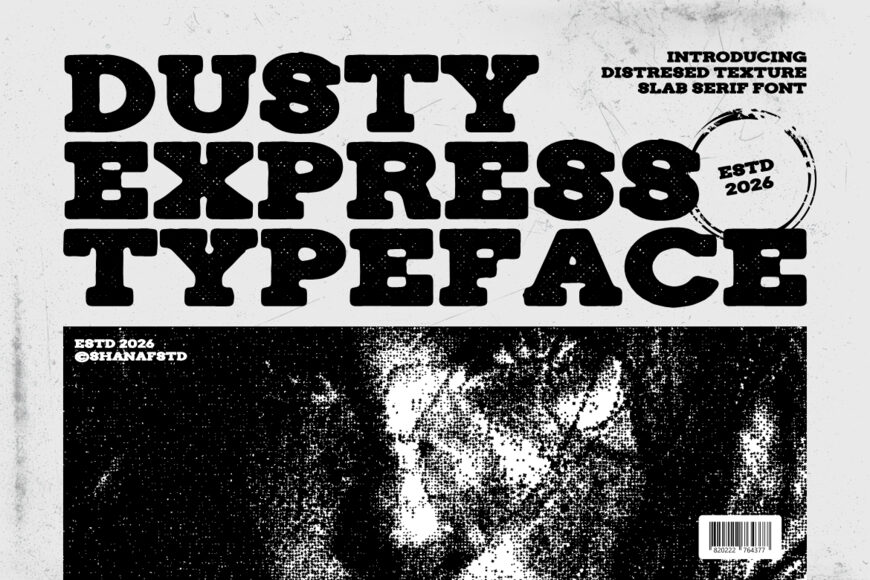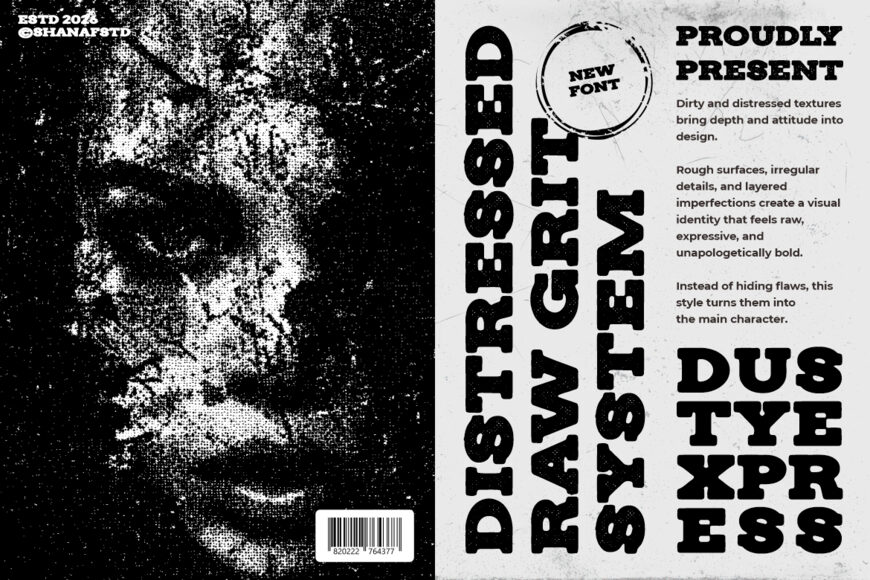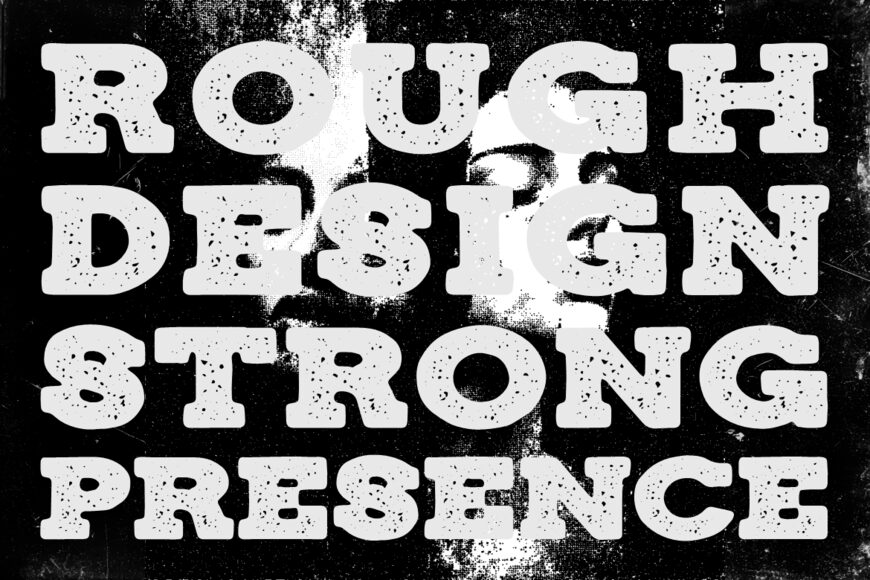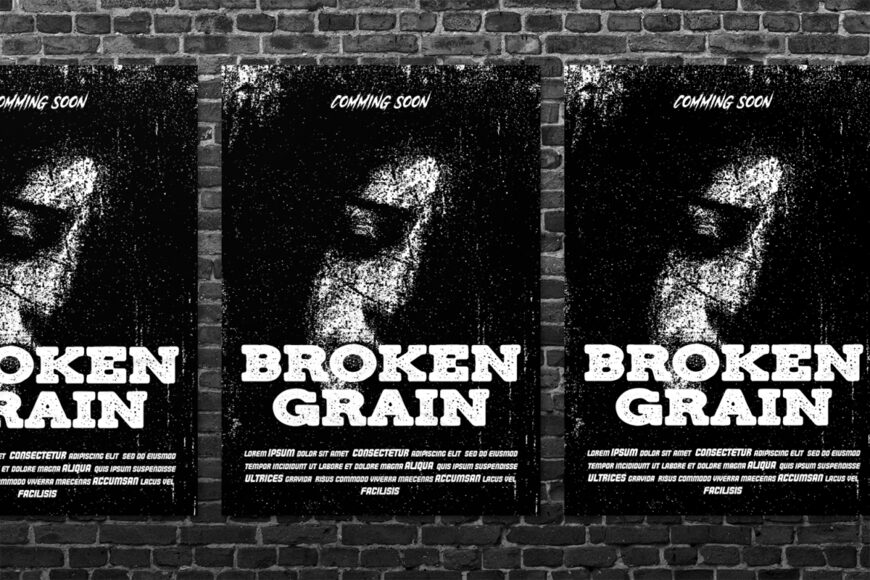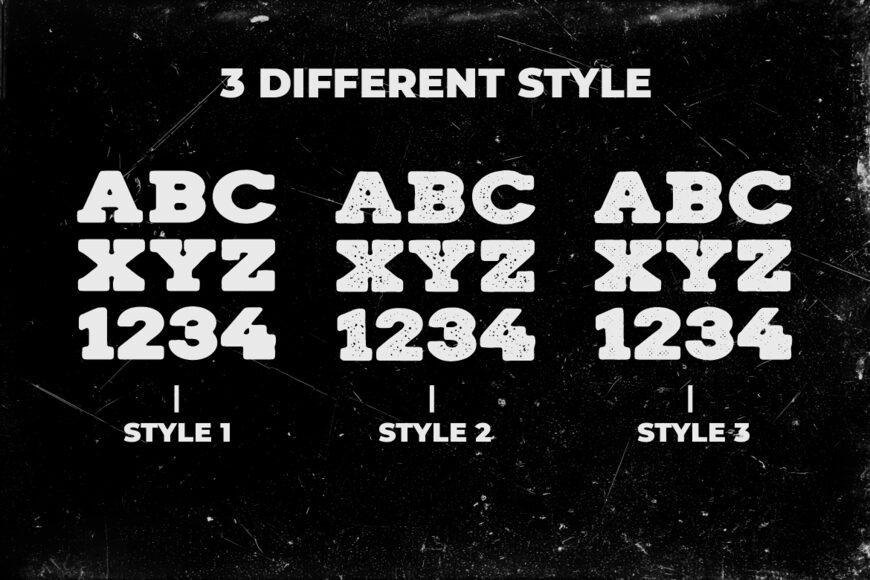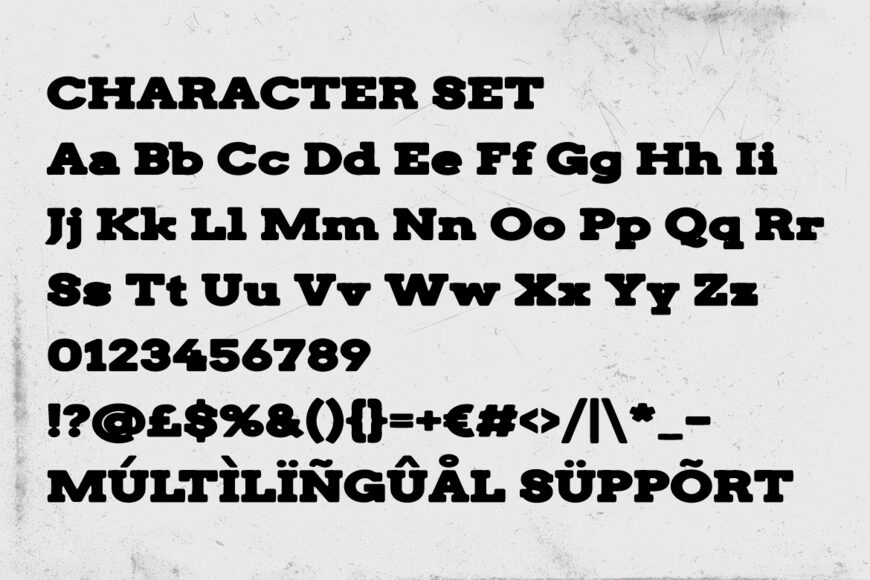
Dusty Express, a Rough Texture Font, delivers a strong slab character with a rugged personality and authentic worn details. The letterforms feature a wide structure, heavy weight, sturdy proportions, and pronounced slab terminals that create a confident visual presence. The textured surface introduces a naturally aged appearance without sacrificing readability.
This font works exceptionally well for logos, branding systems, packaging, advertising, posters, headlines, book covers, magazine titles, product labels, stickers, greeting cards, crafting projects, invitation cards, promotional campaigns, and business identities.